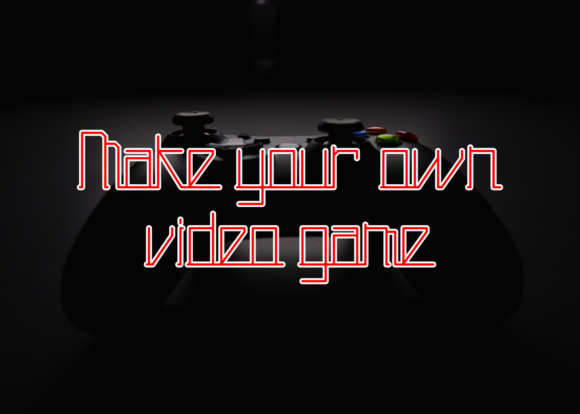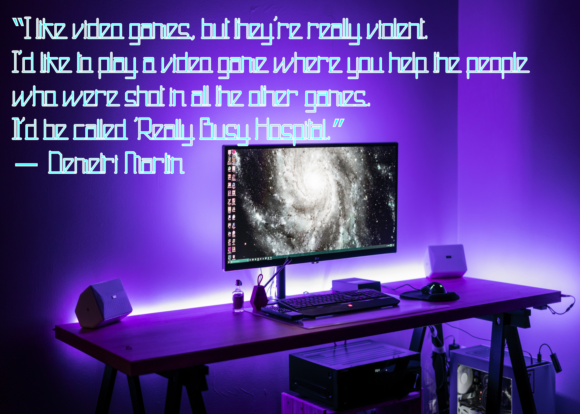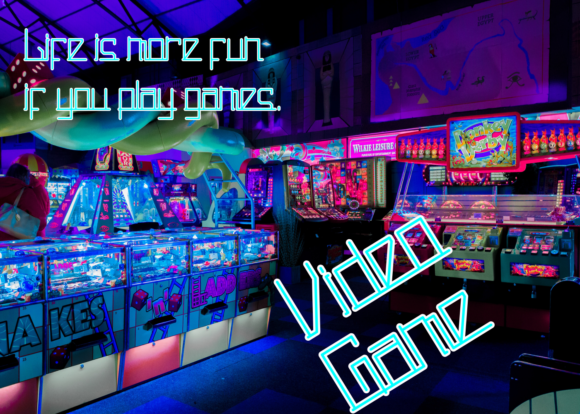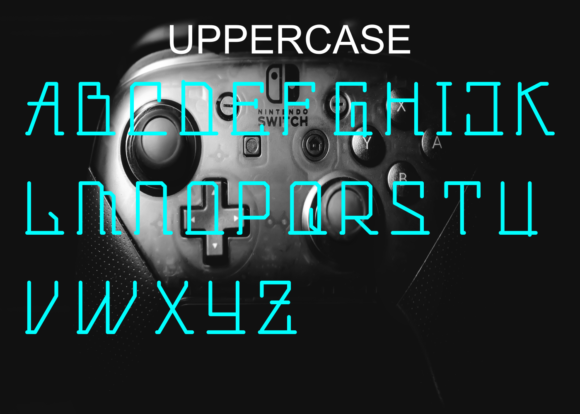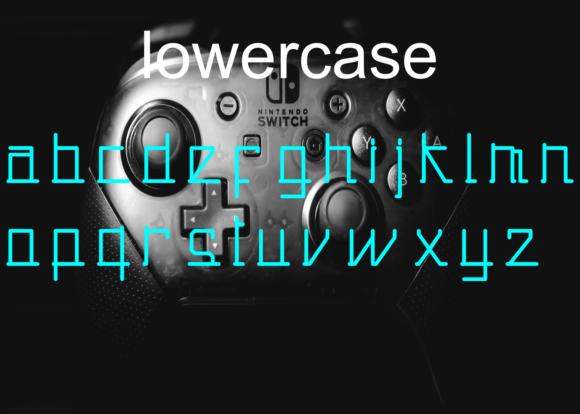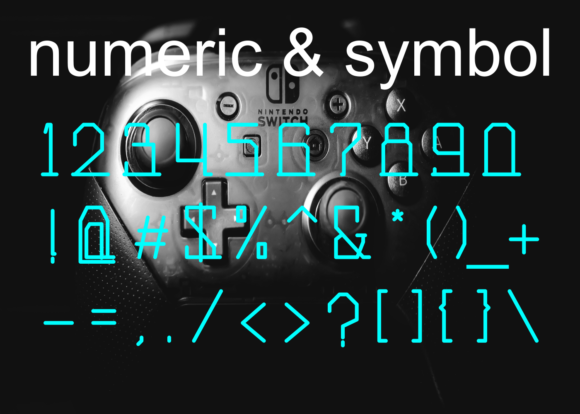
Introduction to Robojeck Font
As you sit in front of your computer, staring at a blank canvas, the creative spark within you is waiting to ignite. The perfect font can be the difference between a good design and a great one. That’s why we’re excited to introduce you to the Robojeck Font, an electrically charged display font that’s sure to add a futuristic feel to any creative project.
With its high-quality design and transparent background, the Robojeck Font is the perfect addition to your design resource arsenal. Whether you’re working on a futuristic sci-fi concept or a sleek tech startup, this font is sure to bring your vision to life. And the best part? It’s available for a free download, making it a valuable resource for designers of all levels.
- Unique robotic-inspired design elements, ideal for futuristic and sci-fi themed creative projects.
- Perfect for use in graphic design, digital art, and other design-related applications.
Honest Review: Robojeck Font
I recently stumbled upon the Robojeck Font and I must say, it’s an exciting addition to any creative project. This high-quality font is perfect for designers who want to add a touch of industrial chic to their designs. One of the standout features of the Robojeck Font is its transparent background, which makes it incredibly versatile and easy to use.
- ✨ High-quality design: The Robojeck Font is well-designed and looks great in a variety of contexts.
While the Robojeck Font is a great resource, there are a few limitations to keep in mind:
- ⚠️ Limited font styles: The Robojeck Font only comes in a few different styles, which may limit its versatility.
- ⚠️ Not ideal for complex designs: The font may not be the best choice for complex designs or those with intricate details.
Overall, I’m impressed with the Robojeck Font and I think it’s a great addition to any design resource library. While it may have a few limitations, its high-quality design and transparent background make it a valuable tool for designers working on creative projects.
The Robojeck Font is ideal for creating designs for logos, branding, and marketing materials. It’s also perfect for creating presentations, documents, and social media graphics. With its high-quality design and transparent background, this font is a valuable resource for any creative project.